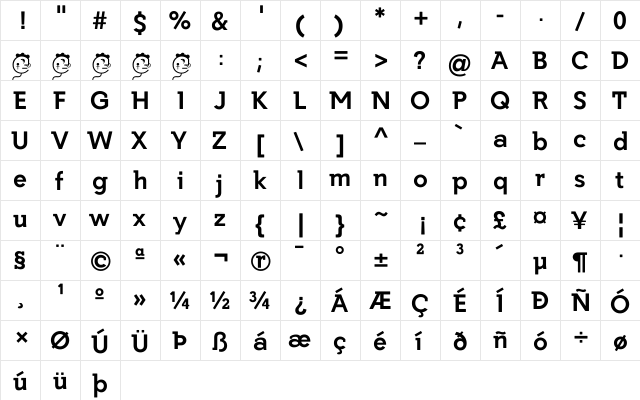
Getho Bold
| Foundry | deFharo |
| Designer | Fernando Haro |
Design Context for Getho Typeface
Getho offers clean, dependable letterforms without strong stylistic allegiance, making it a practical choice for designers who need flexibility. Its bold stroke weight gives it real presence on the page.